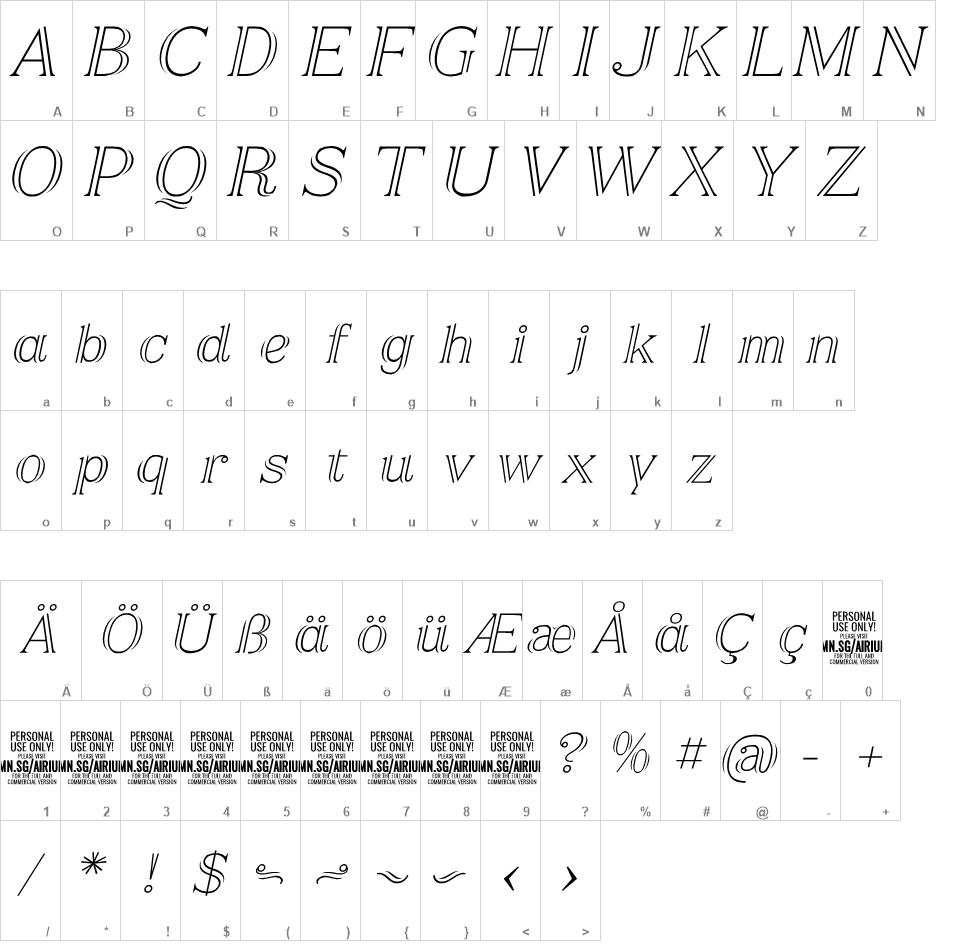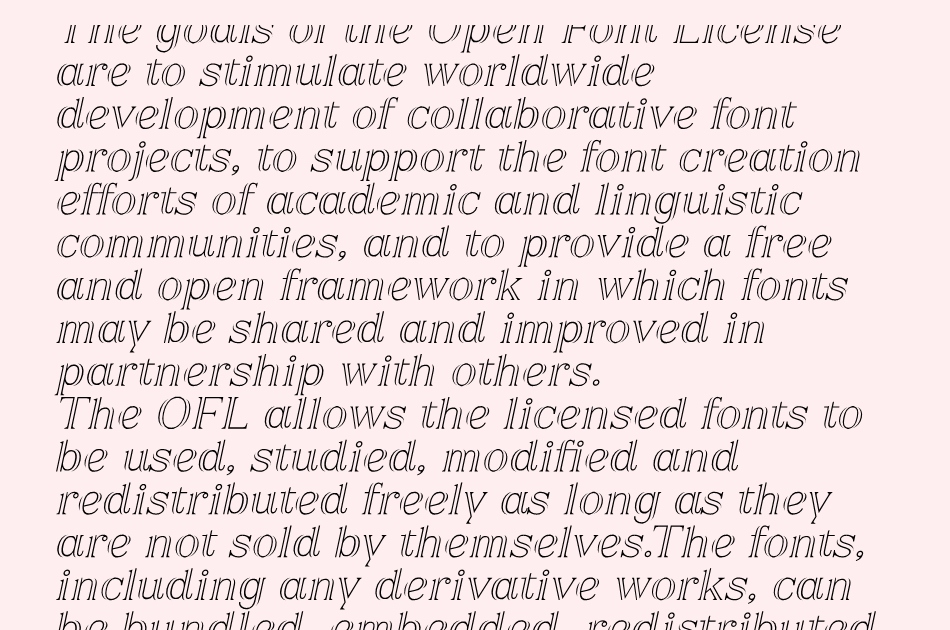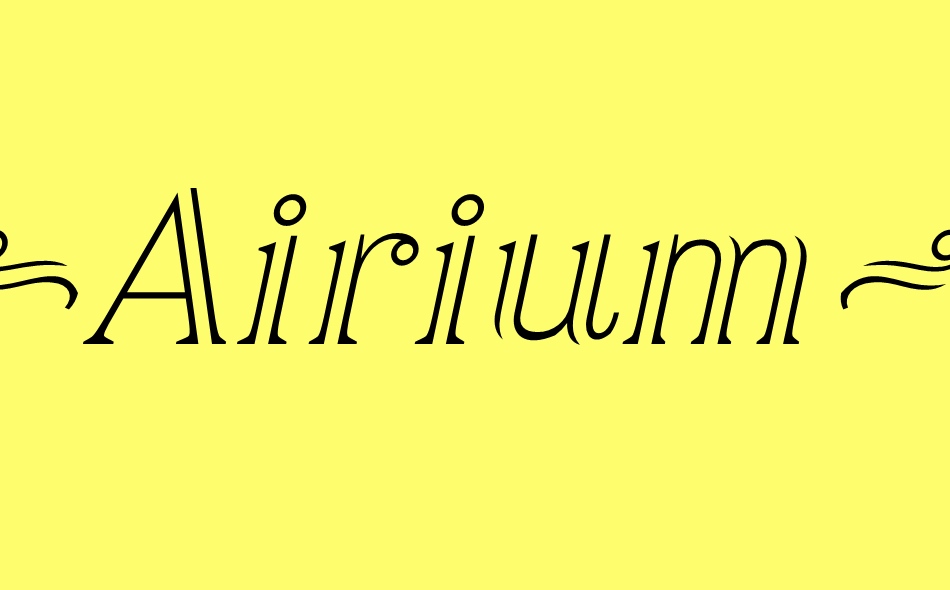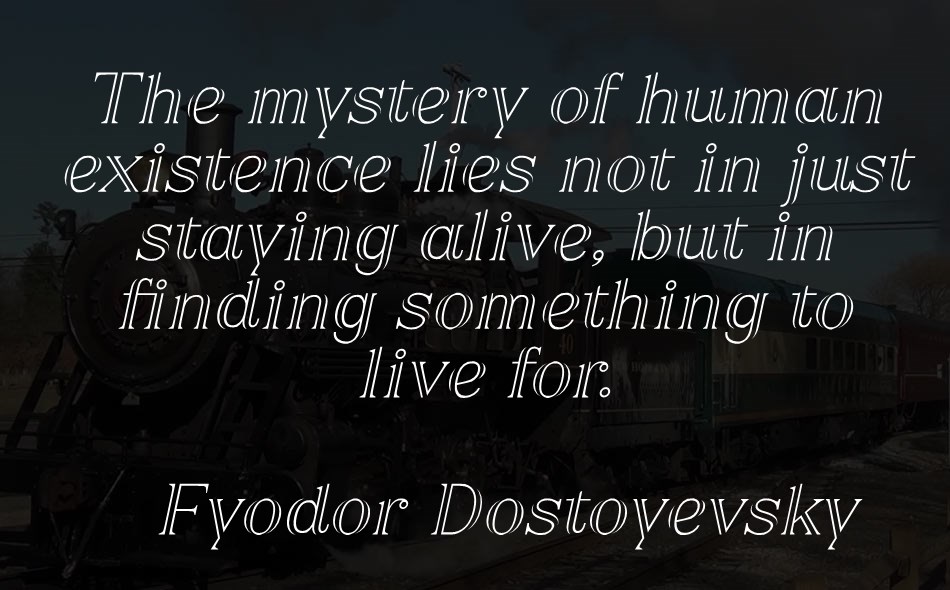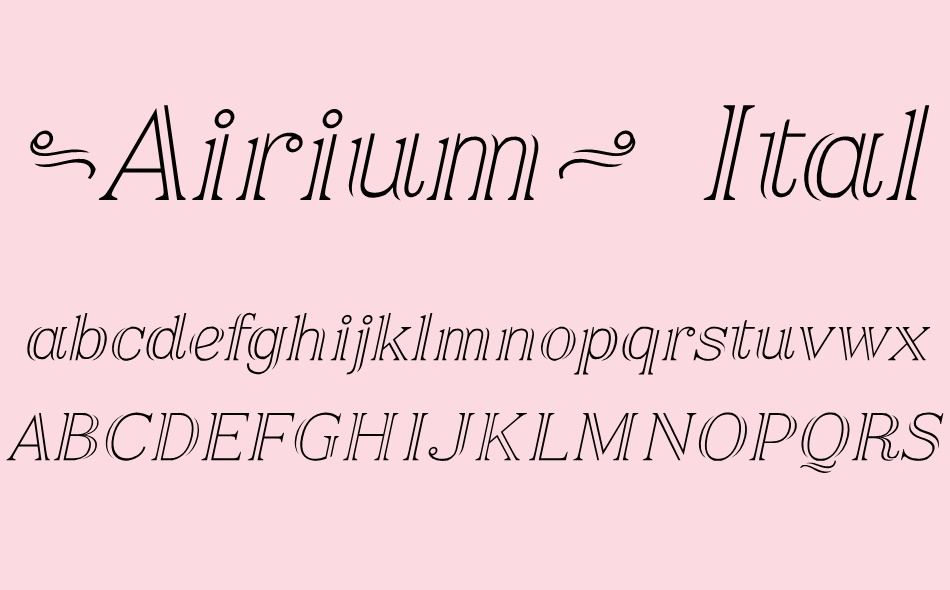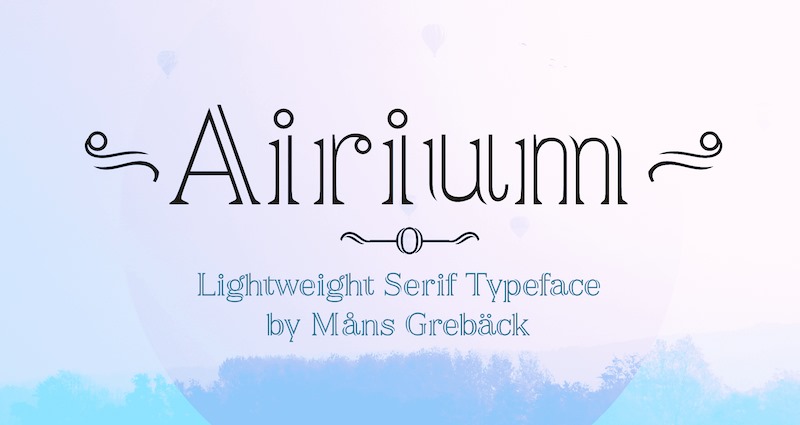
Airium font
Use the parenthesis characters ( [ { } ] ) to make decorative swashes.
Example: [Wonderful]
Airium is a decorative serif typeface.
Classy and clear, but with original display features, Airium assures any graphic project a characteristic appearance and unique personality.
It is lightweight and bright, with cut-out parts and hollow vertical strokes.
Use the parenthesis characters ( [ { } ] ) to make decorative swashes. Example: [Wonderful]
The Airium family consists of four high-quality styles: Regular, Bold, Italic and Bold Italic.